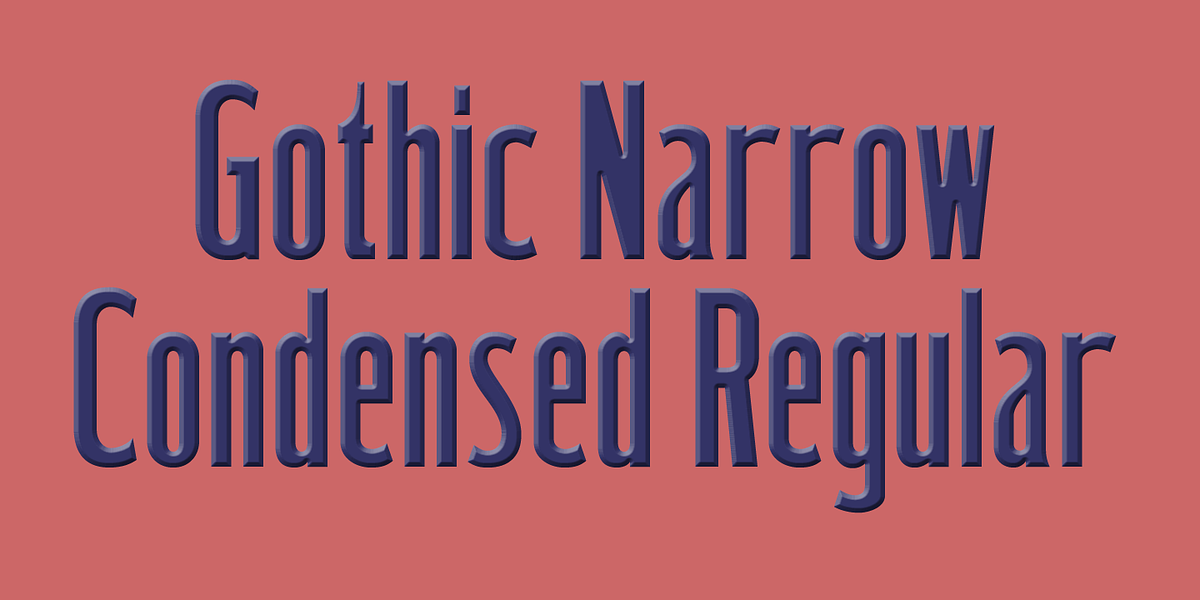
Gothic Condensed Narrow
This font is a revival of a popular sans serif wooden type font from the 1870s. It features a narrow design with short ascenders and descenders, giving it a distinctive vintage look.